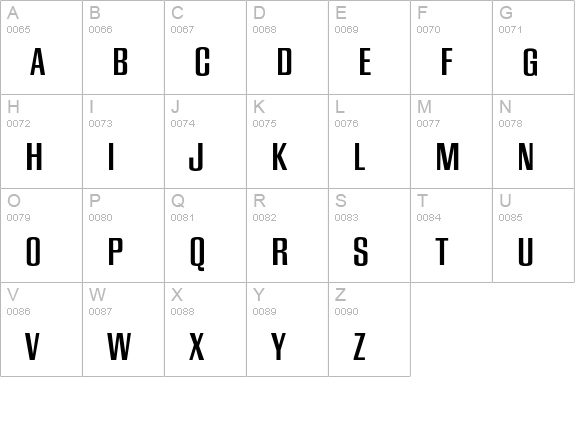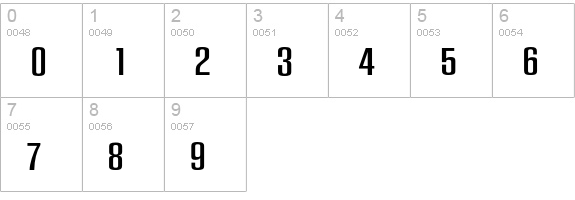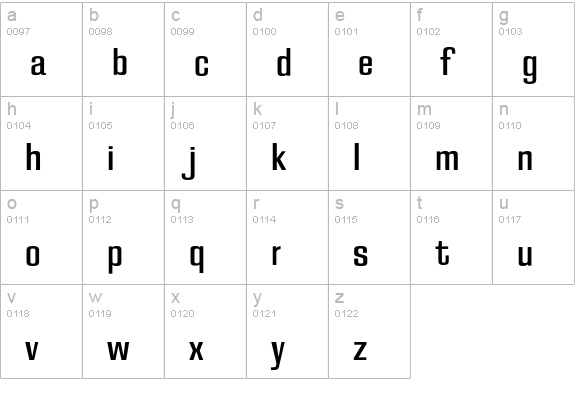
CaliforniaGrotesk-Medium Font Details
CaliforniaGrotesk-Medium is a balanced, medium-weight variant in the CaliforniaGrotesk typeface family \xE2\x80\x94 well suited to sub-headlines, navigation, and balanced editorial work.
CaliforniaGrotesk-Medium font is a versatile and modern typeface that strikes the perfect balance between elegance and readability. With its clean lines and bold weight, this font is ideal for a wide range of design projects, from branding and advertising to editorial and web design. What sets CaliforniaGrotesk-Medium font apart is its unique blend of classic proportions and contemporary styling, making it a distinctive choice for designers looking to make a statement. Whether used for headlines, body text, or any other typographic element, this font exudes a sense of sophistication and professionalism. And the best part? CaliforniaGrotesk-Medium font is available for free download at FontsMarket.com. So you can elevate your designs with this premium font without breaking the bank. Don't miss out on the opportunity to add CaliforniaGrotesk-Medium font to your font library today!